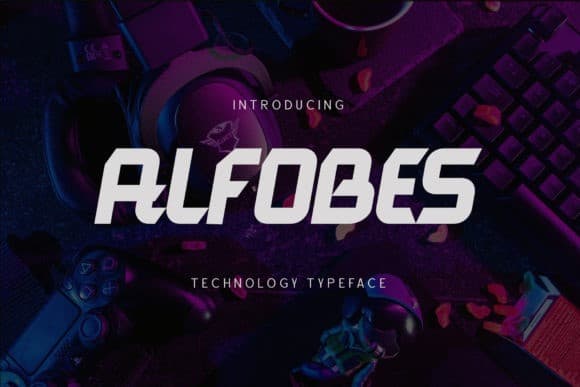
ALFOBES Font
ALFOBES Display Font is a Bold, Modern and Tough sans serif font. This font is kerned tightly to give a solid and strong impression. It comes with more variation and alternates. Alfobes is a futuristic display font, inspired by space-like design concepts. This font is good for future related designs, modern, space, sports, bold and speed themed designs.